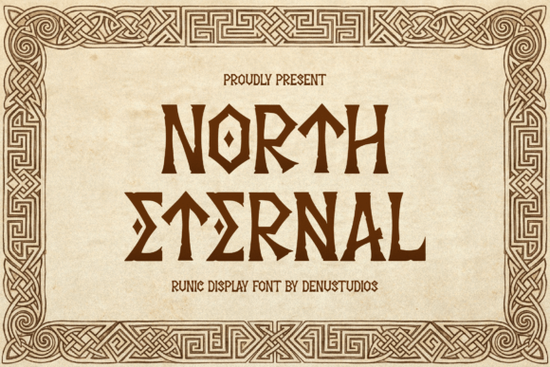
If you're working on a project that calls for a bold, mythic feel think Viking sagas, fantasy RPGs, or heritage-inspired branding you’ve probably searched for a font that feels both ancient and striking. That’s where North Eternal Font comes in. Designed with sharp, angular lines reminiscent of Norse runes and stone-carved inscriptions, it brings a grounded, ancestral energy to any creative work without tipping into cliché.
Unlike generic blackletter fonts that lean heavily gothic or medieval European, North Eternal draws specifically from Nordic visual traditions. Its geometric structure and rhythmic spacing give it a clean yet primal presence ideal for designers who want authenticity without sacrificing legibility. Whether you’re designing a book cover for historical fiction, creating merch for a Norse mythology podcast, or crafting social media banners for a tabletop gaming campaign, this typeface adds instant atmosphere.
What makes North Eternal stand out from other rune-inspired fonts?
Many fonts labeled “Viking” or “runic” are either overly ornate or too abstract to read easily. North Eternal strikes a balance: it’s stylized enough to feel thematic but structured enough to remain functional at display sizes. Each character echoes the chiseled precision of runestones, yet maintains consistent stroke weight and spacing something crucial when your audience needs to recognize words quickly (like on apparel or event posters).
You’ll also find it fits neatly within Creative Fabrica’s growing collection of blackletter-style fonts that prioritize usability alongside aesthetic depth. It’s not just about looking old it’s about feeling intentional.
Who should use North Eternal and how?
This font shines in visual contexts where mood matters as much as message. Here’s where it works especially well:
- Fantasy game designers: Use it for logos, spell cards, or faction emblems in indie RPGs or board games.
- Book cover artists: Perfect for historical fiction, Norse mythology retellings, or dark fantasy novels needing a rugged, timeless title treatment.
- Print-on-demand sellers: T-shirts, mugs, and wall art featuring quotes from sagas or original “warrior wisdom” look instantly more authentic with this typeface.
- Content creators: YouTube thumbnails, Instagram story headers, or podcast episode titles gain gravitas when set in North Eternal.
Because it’s a display font, it’s best used for headlines, logos, or short phrases not body text. Pair it with a clean sans-serif (like Montserrat or Lato) for contrast and readability in supporting copy.
For those curious about real runic alphabets, the North Eternal Font isn’t a direct transcription tool but it captures the essence beautifully for modern storytelling.
Tips for using it effectively
To avoid overwhelming your design:
- Use generous spacing: The angular forms benefit from a little breathing room avoid tight kerning.
- Limit line length: Best for 1–5 words. Longer phrases lose impact and readability.
- Pair with texture: Overlay on weathered paper, stone, or woodgrain backgrounds to enhance the carved-in-stone vibe.
- Stick to high-contrast colors: Deep blacks, blood reds, or icy blues against neutral tones make the sharp edges pop.
Remember: this font is about mood, not minimalism. Lean into its dramatic nature but keep the rest of your layout clean so it doesn’t compete for attention.
If yes to all four, North Eternal could be the missing piece that gives your design that grounded, legendary feel without looking like a costume.